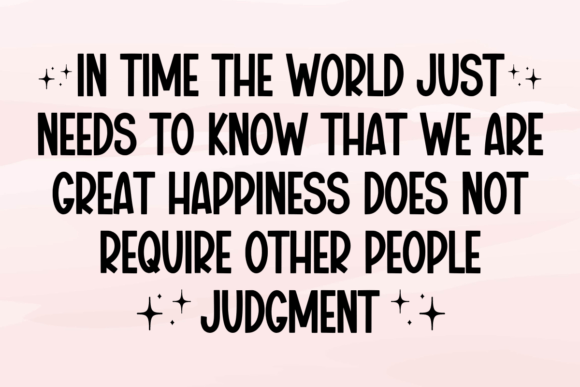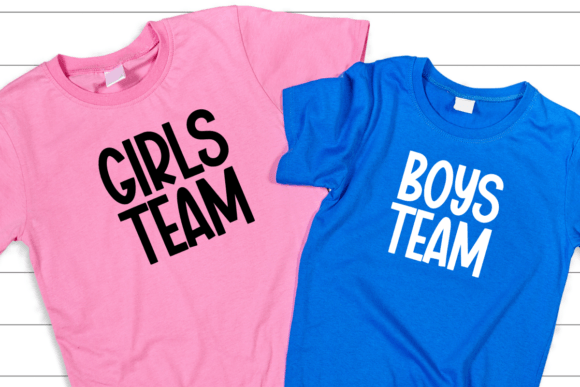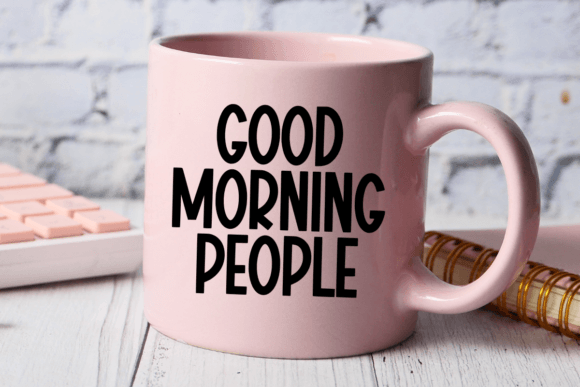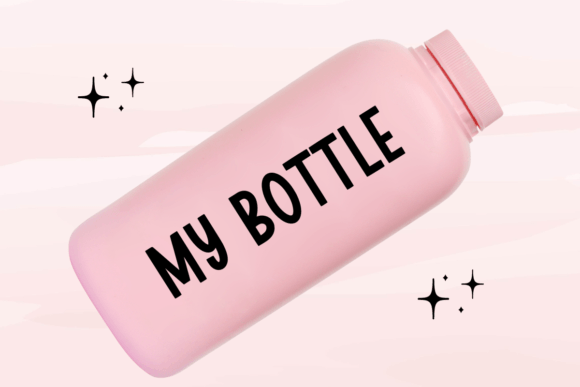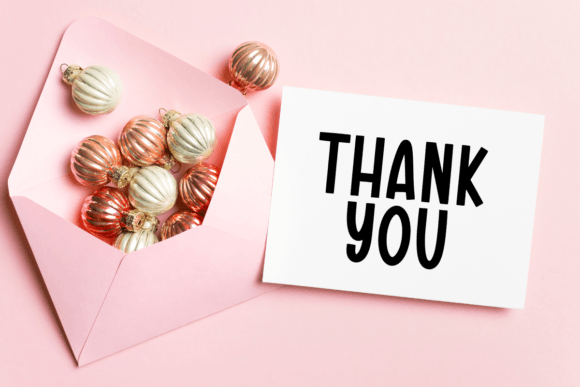
Simple Stacked Font
Simple Stadcke is a fun and unique sans-serif font. Whatever the topic, this font will be a wonderful asset to your font library, as it has the potential to enhance any creation.